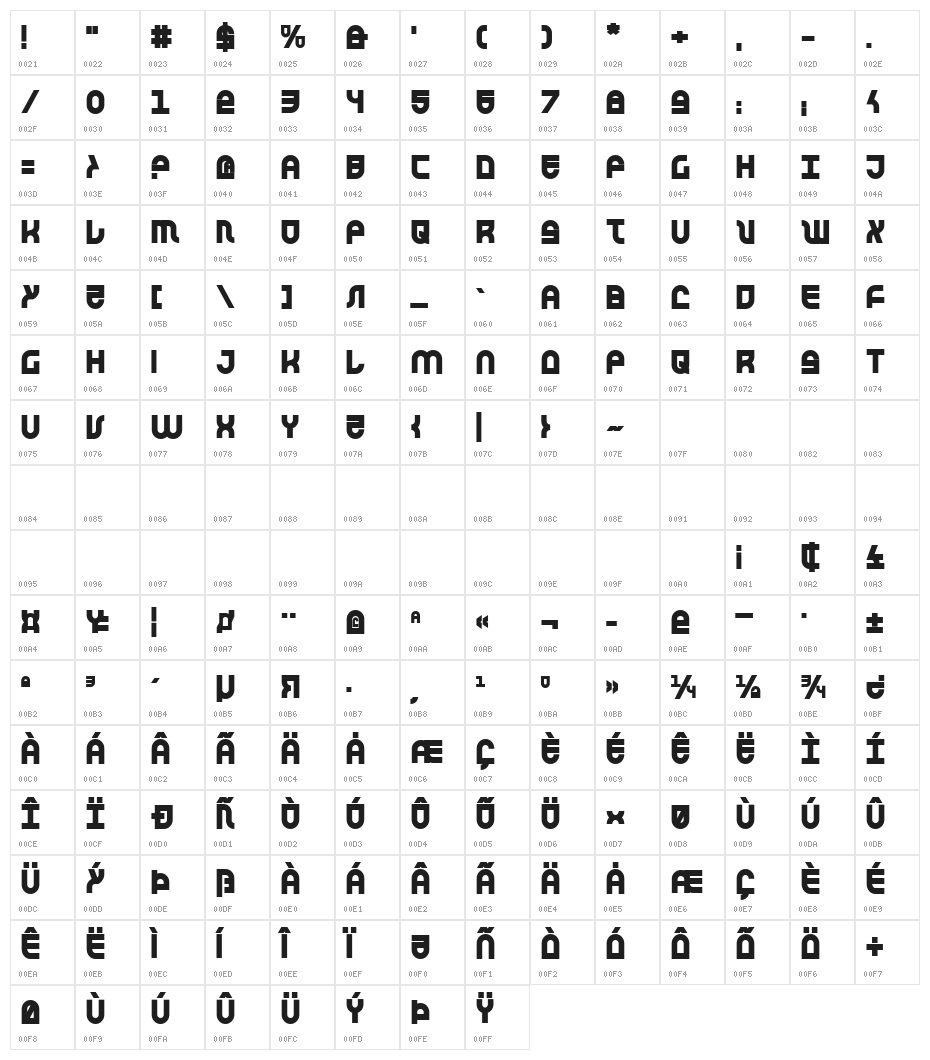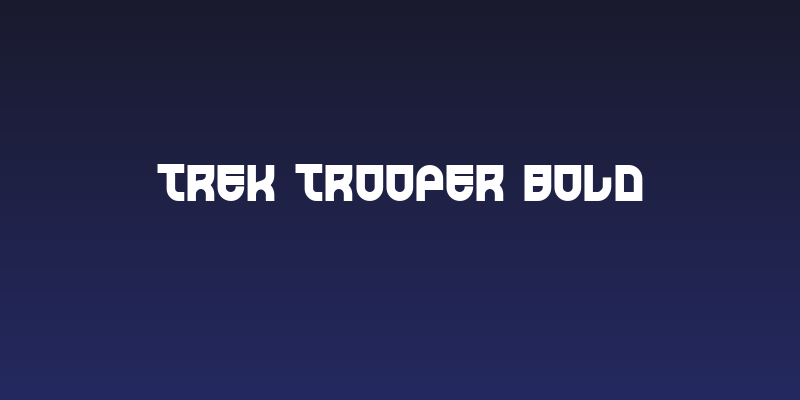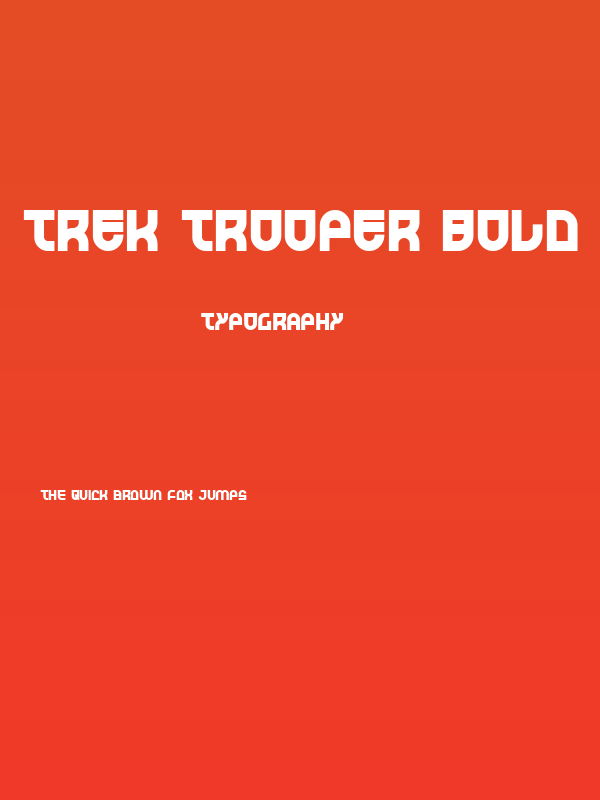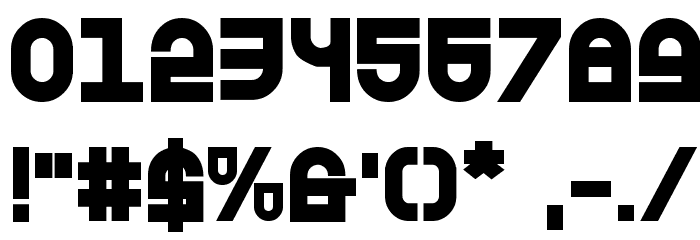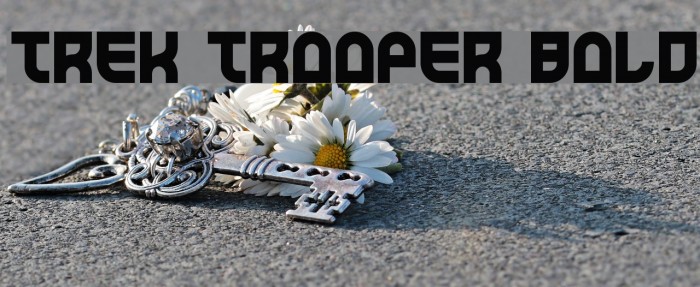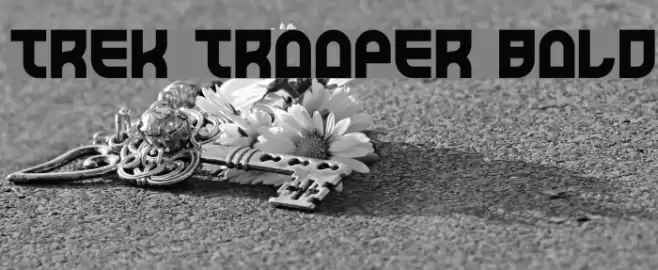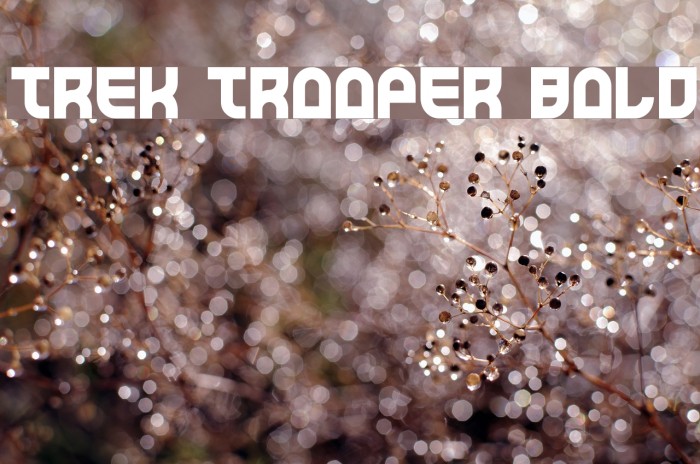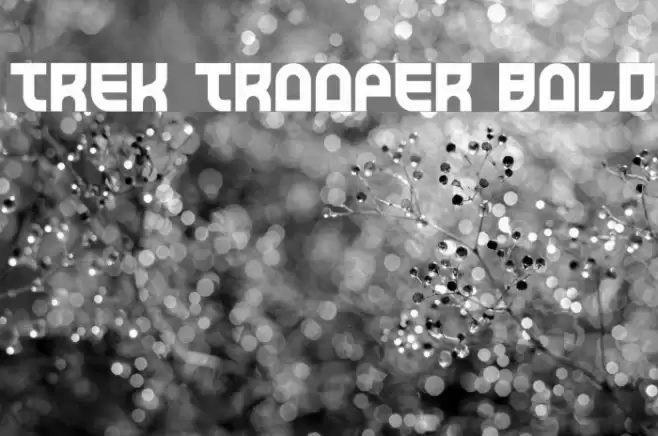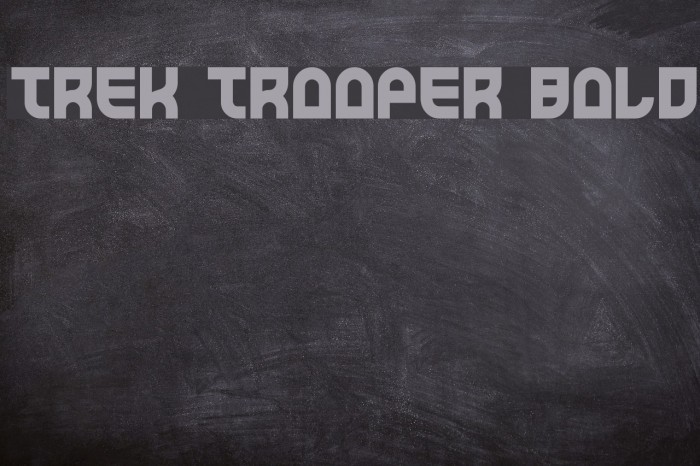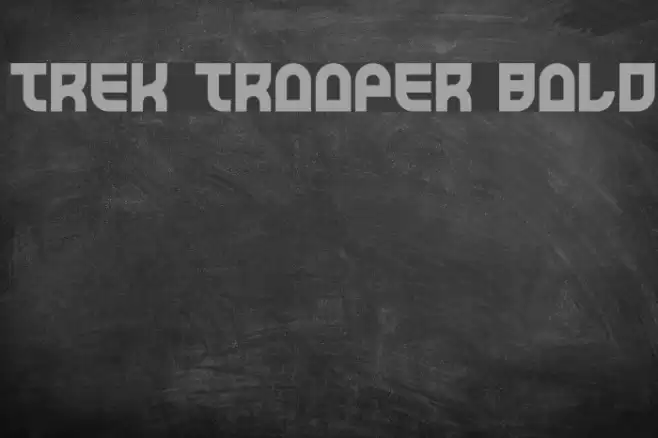
Trek Trooper Bold Font
| Stile generale | Futuristic |
| Progetti proposti | Ideal for sci-fi themed projects, technology branding, video game titles, and futuristic posters. |